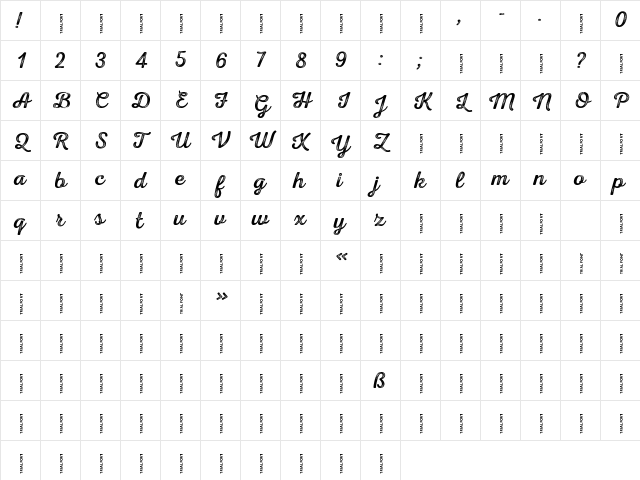
Nexa Rust Script R-Trial 4 Regular
Foundry: Fontfabric LLC
Designer: Fontfabric
Design Context for Nexa Rust Script R-Trial 4
Nexa Rust Script R-Trial 4 flows with the natural rhythm of handwritten lettering, making it ideal for designs that call for warmth and personal expression.